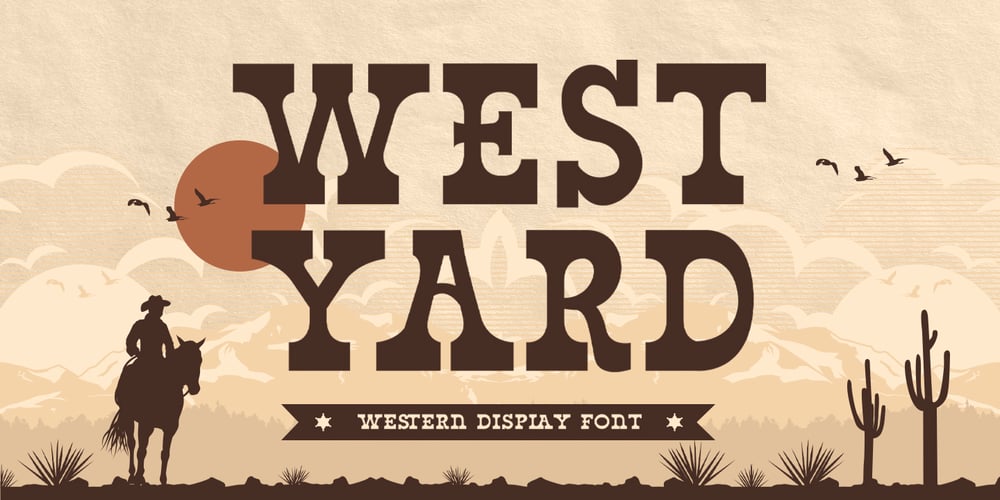
West Yard Font Family was designed by Hilmius Akbar and published by Typefactory. West Yard contains 1 styles and family package options. West Yard is a bold, western looking display font.Whether you are using it for cartoon-related designs, children’s games, quotes, titles, brand names, book covers, posters, or just any creation that requires a touch of beauty, this font is a great choice.